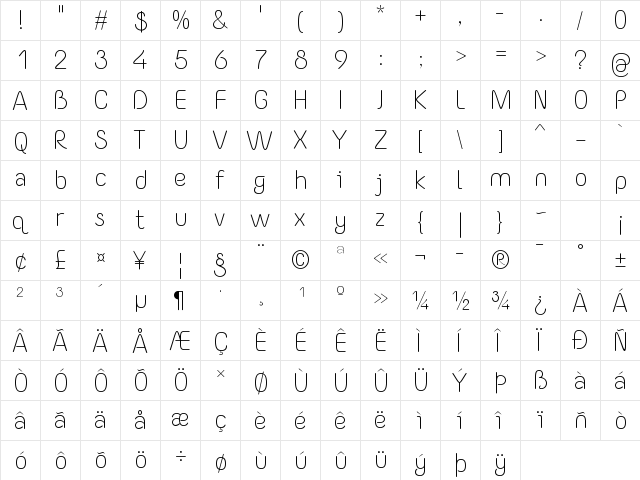
Yaahowu Light Regular
| Designer | Situjuh Nazara |
Design Context for Yaahowu Light Typeface
Yaahowu Light takes a measured approach to typography — its balanced proportions and neutral character make it a reliable workhorse for both digital and print work. The delicate stroke weight brings airiness and refinement to layouts.